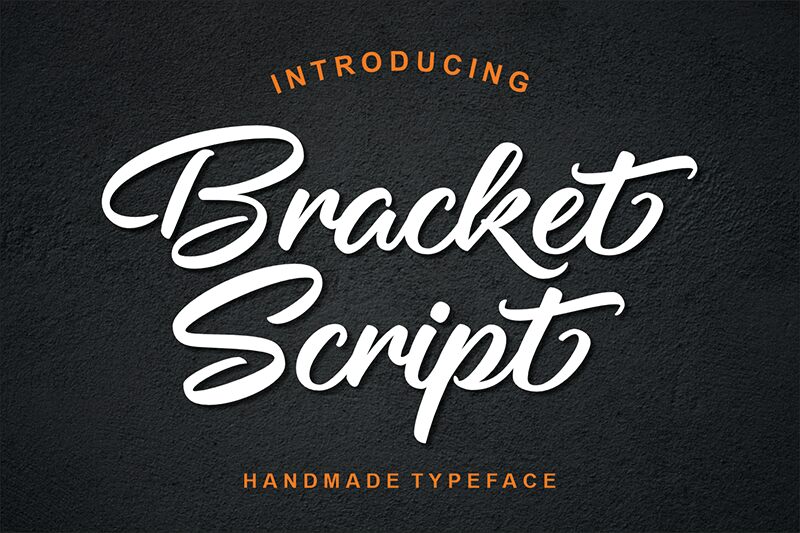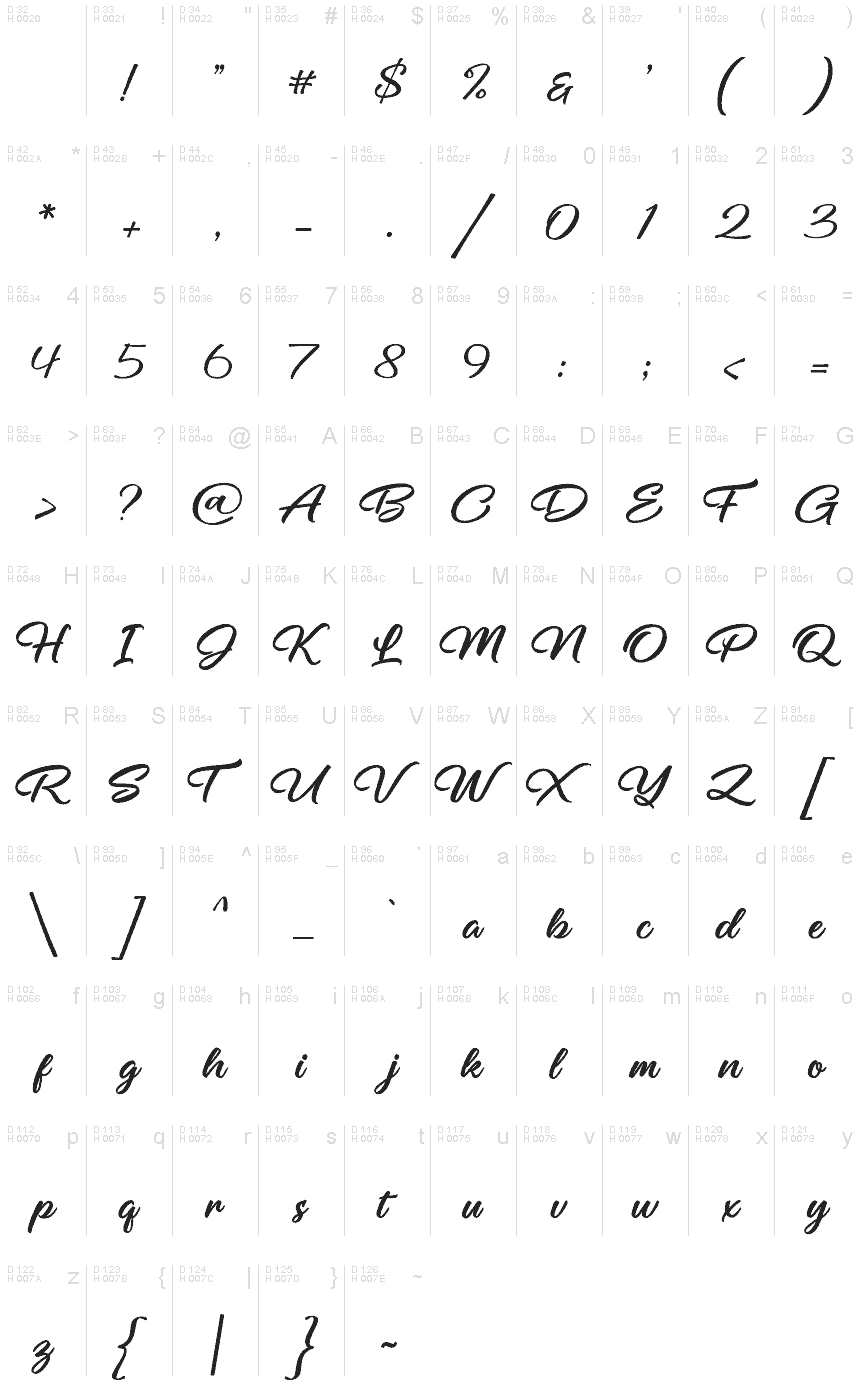
Bracket font resembles casual handwriting with all letters having an elegant flow. This free handwritten font has a modern appeal of casual scripts, as it combines simplicity with expressiveness. The beautiful motion behind the letting slightly resembles a brush hint while they present an overall smooth texture and reading experience.
Few applications where Bracket is most suitable include logotypes, book covers, signage, posters, headlines social media posts among others. All sizes and color combinations are possible in both digital and print format especially designs targeting female audiences.